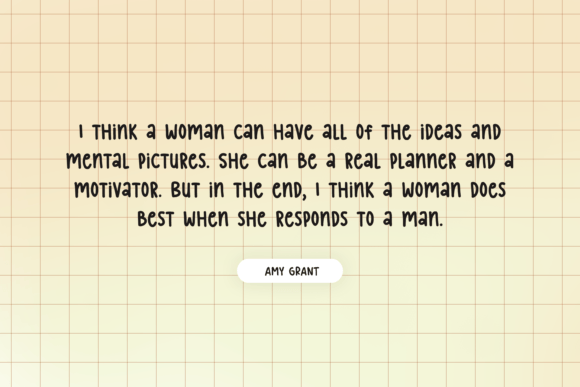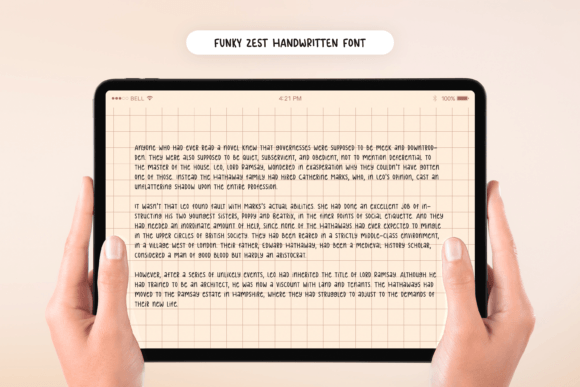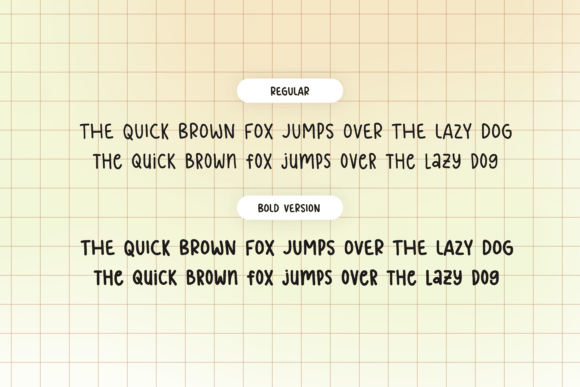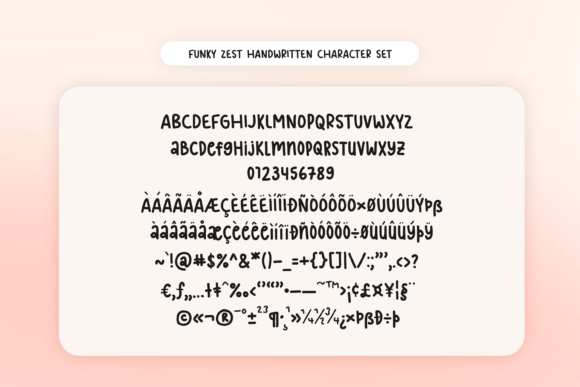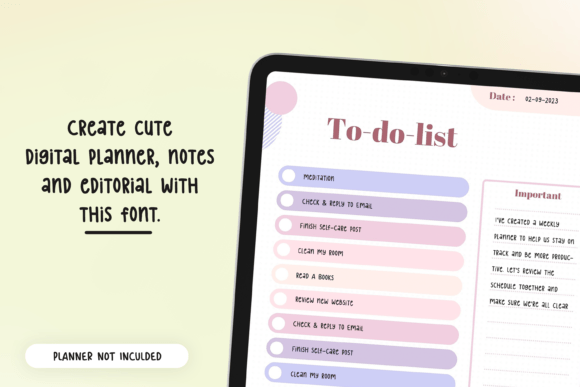
Introduction to Funky Zest Font
Have you ever sat at your desk, surrounded by scribbled notes and scattered ideas, and suddenly felt a spark of creativity ignite within you? The blank page stares back, waiting for your unique touch, and you know exactly what you need – a font that speaks to your soul. Enter the Funky Zest Font, a modern and minimalist handwritten font designed to elevate your digital planner and any creative project that comes your way.
As a designer, you understand the importance of a high-quality design resource that can elevate your work. The Funky Zest Font is not just a font – it’s a tool to help you express yourself and bring your ideas to life. With its transparent background and crisp, clean lines, this font is the perfect addition to any design project, from digital planners to social media graphics.
Key Features of Funky Zest Font
- Unique blend of modern and vintage elements, perfect for creative projects that require a touch of personality.
- Transparent background, allowing for seamless integration with backgrounds and images, making it an excellent choice for graphic designers.
- Perfect for use in posters, flyers, social media graphics, and other design projects where a funky and energetic vibe is required.
- Easy to customize and manipulate, making it an excellent choice for designers who want to add a unique touch to their creative projects.
I recently had the chance to work with the Funky Zest Font, and I must say it’s a fun addition to any creative project. The font’s unique design makes it perfect for those looking to add a bit of personality to their work.
- ✨ High quality design that’s perfect for creative projects
- ✨ Transparent background makes it easy to use in various design contexts
One of the things I appreciate about the Funky Zest Font is its versatility. It’s suitable for a wide range of design applications, from branding to digital art. The font’s funky vibe adds a touch of playfulness to any project.
- ⚠️ Limited character set may not be suitable for extended text content
- ⚠️ Not ideal for formal or professional projects where a more traditional font is required
Overall, the Funky Zest Font is a great design resource for those looking to add some personality to their work. While it may not be suitable for every project, it’s definitely worth considering for creative projects that require a bit of flair.
Funky Zest Font is ideal for creative projects such as infographics, posters, and social media graphics. Its unique style and transparent background feature make it a popular design resource among designers and artists.